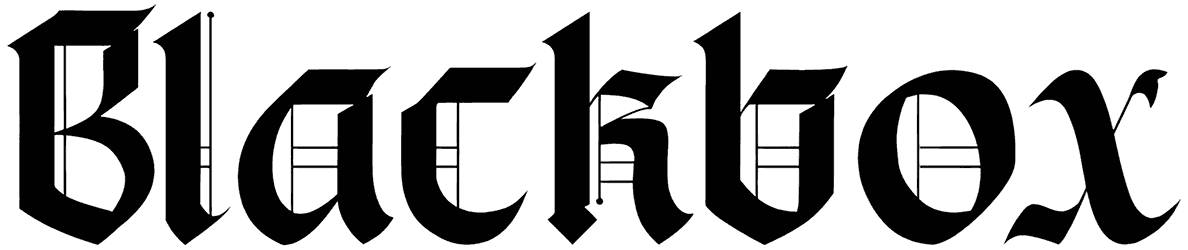
Blackbox Font
For redefining your archaic visual production in a traditional and ancient identity to take it to a whole next level, or promoting your heading designs for movie titles, advertising, fashion, packaging, and others, never bypass this blackletter tattoo font with jagged pointy particles suspended in the mysterious surroundings from RB’s archives.